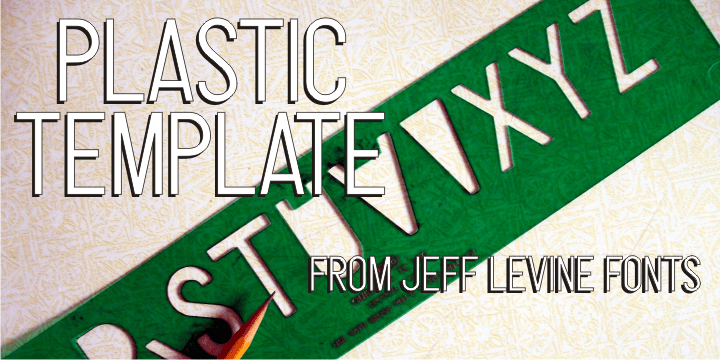
Plastic Template
Prior to the advent of digital type, many architectural layouts, amateur print projects and a myriad of other lettering jobs were created by the use of routed plastic templates and ink pens.
Plastic Template JNL was designed from just one strip of a multi-part template set and replicates the clean lines of the original design.
Plastic Template JNL Regular by Jeff Levine Fonts